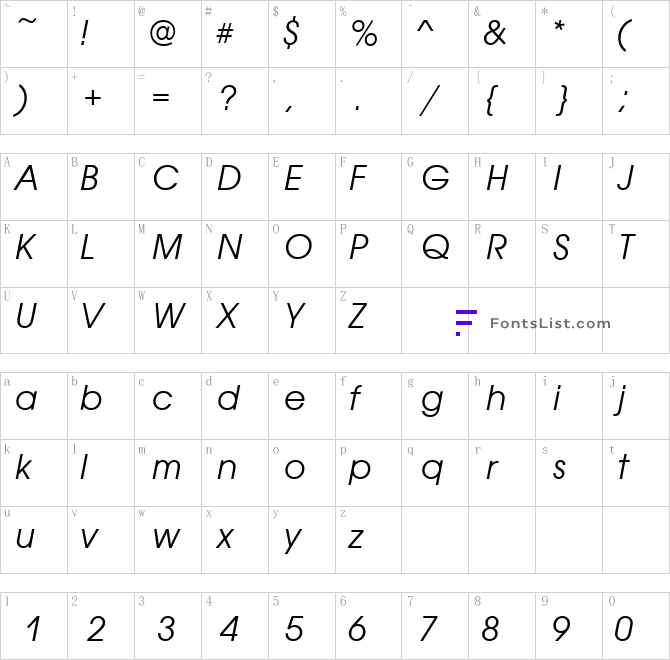
- Font Name:Avignon
- Subfamily:SoftMaker Software GmbH Avignon-Italic
Avignon-Italic.ttf is a very beautiful artistic font, Avignon-Italic.ttf is widely used in the design and printing of various books and pictures,Avignon-Italic.ttf has a strong visual impact,Avignon-Italic.ttf is a commonly used font in newspapers, magazines and books, and is used in posters, e-commerce Poster design, store design, logo design, font design and other fields.Avignon-Italic.